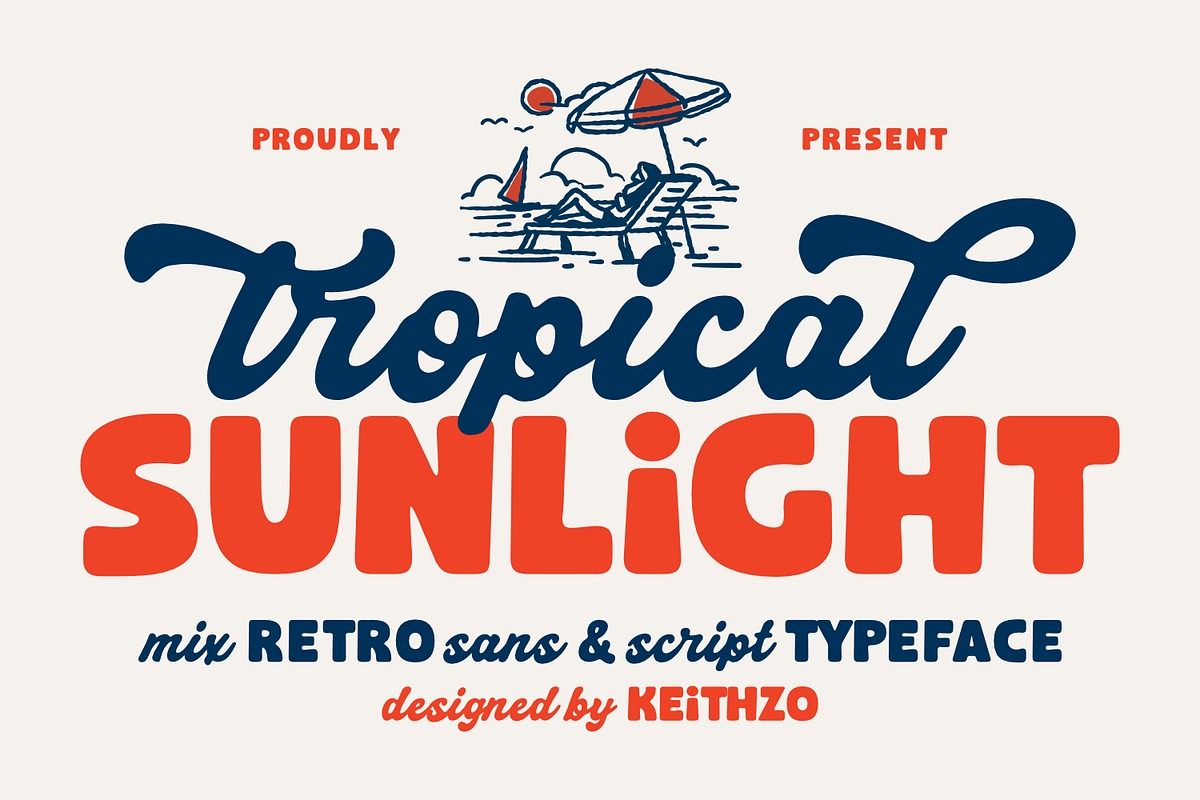
Tropical Sunlight Mix Font
Tropical Sunlight Mix Font is a professionally designed typeface that delivers clarity, structure, and consistent performance across various design applications. Tropical Sunlight is a perfectly matched typographic duo combining a heavy, rounded retro sans-serif with a fluid, sweeping cursive script.
Designed to evoke 1970s beach club aesthetics, surf shop signage, and sun-drenched resort branding, this pair gives you instant typographic hierarchy and effortless vintage contrast.